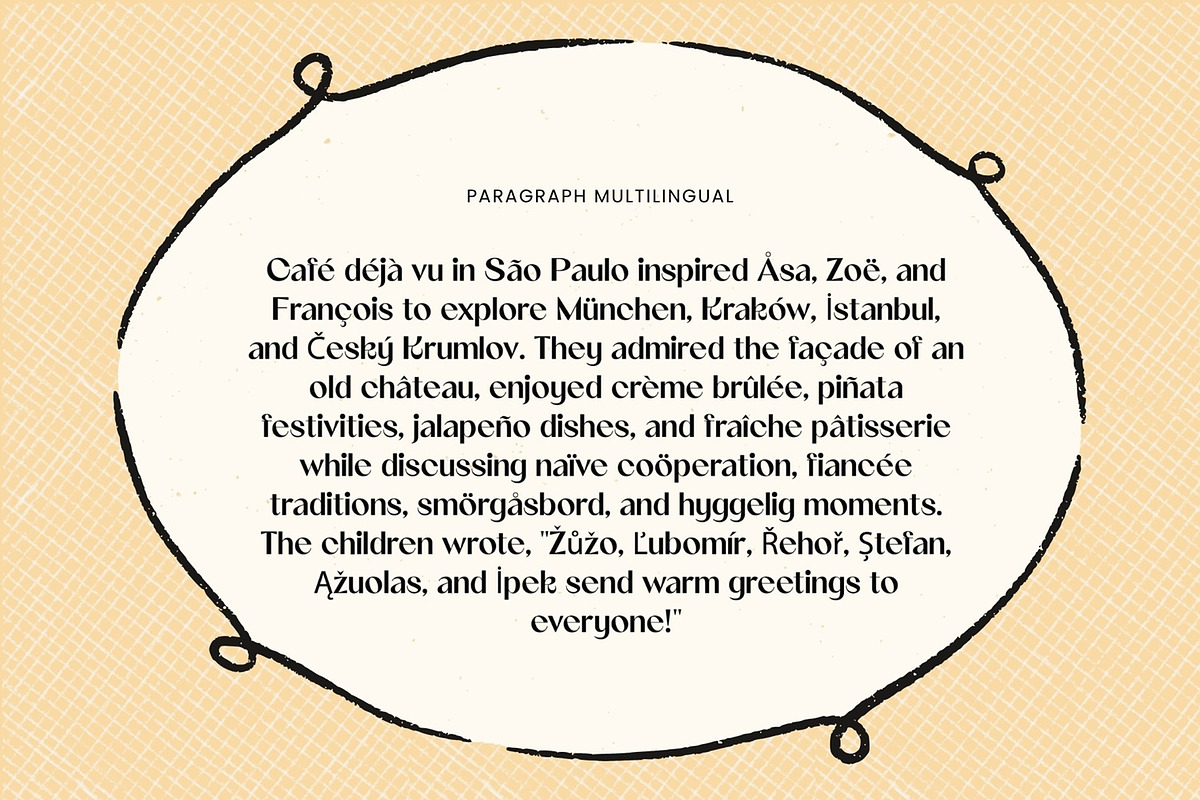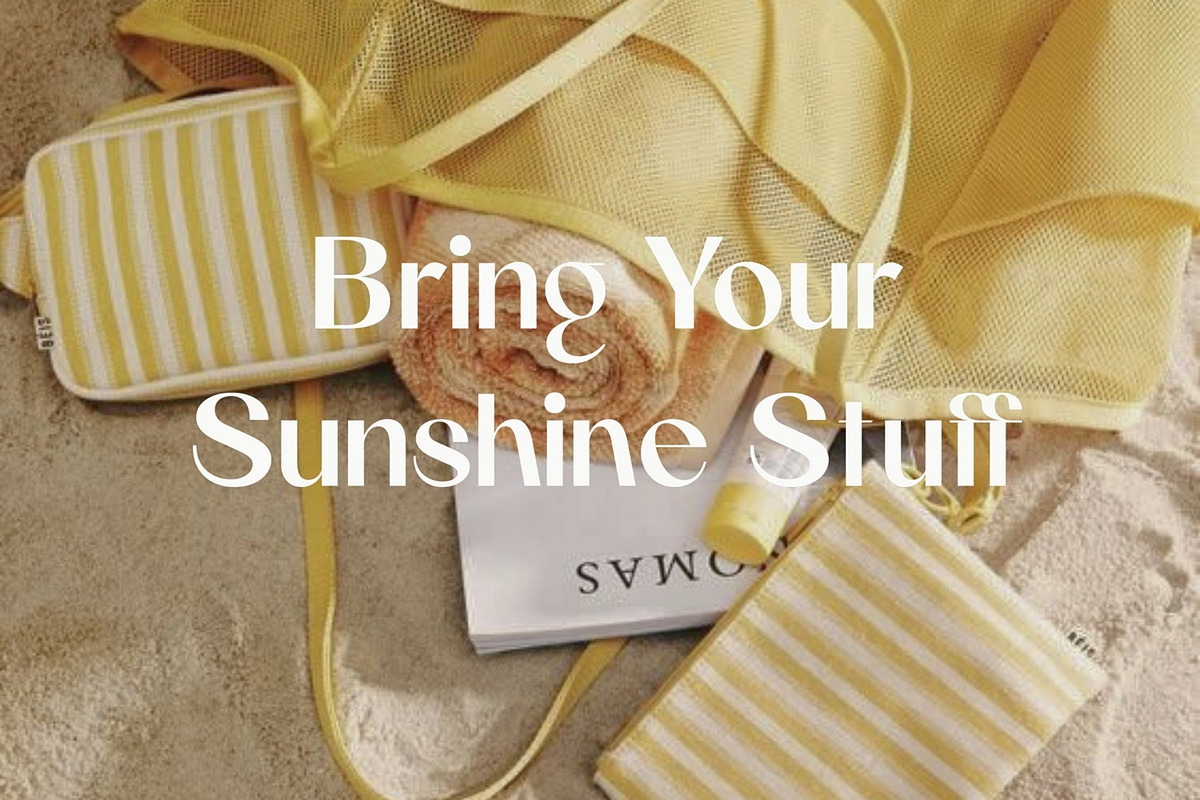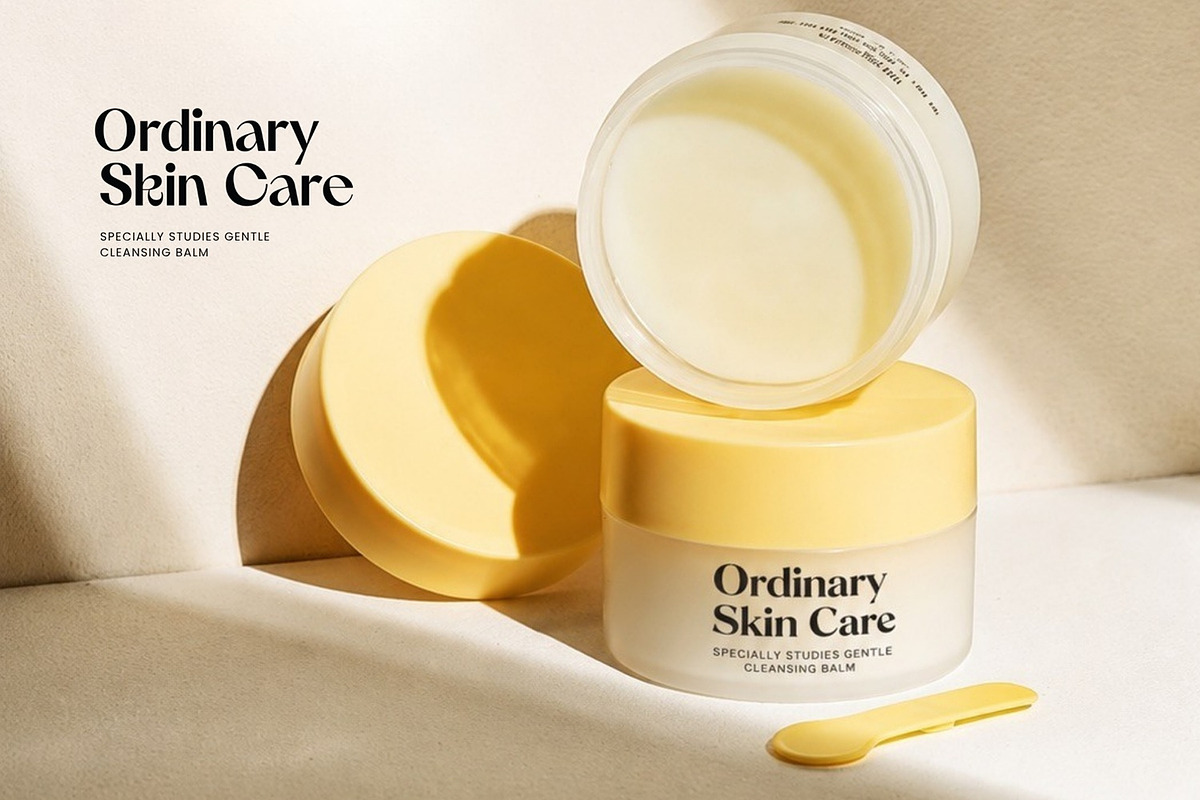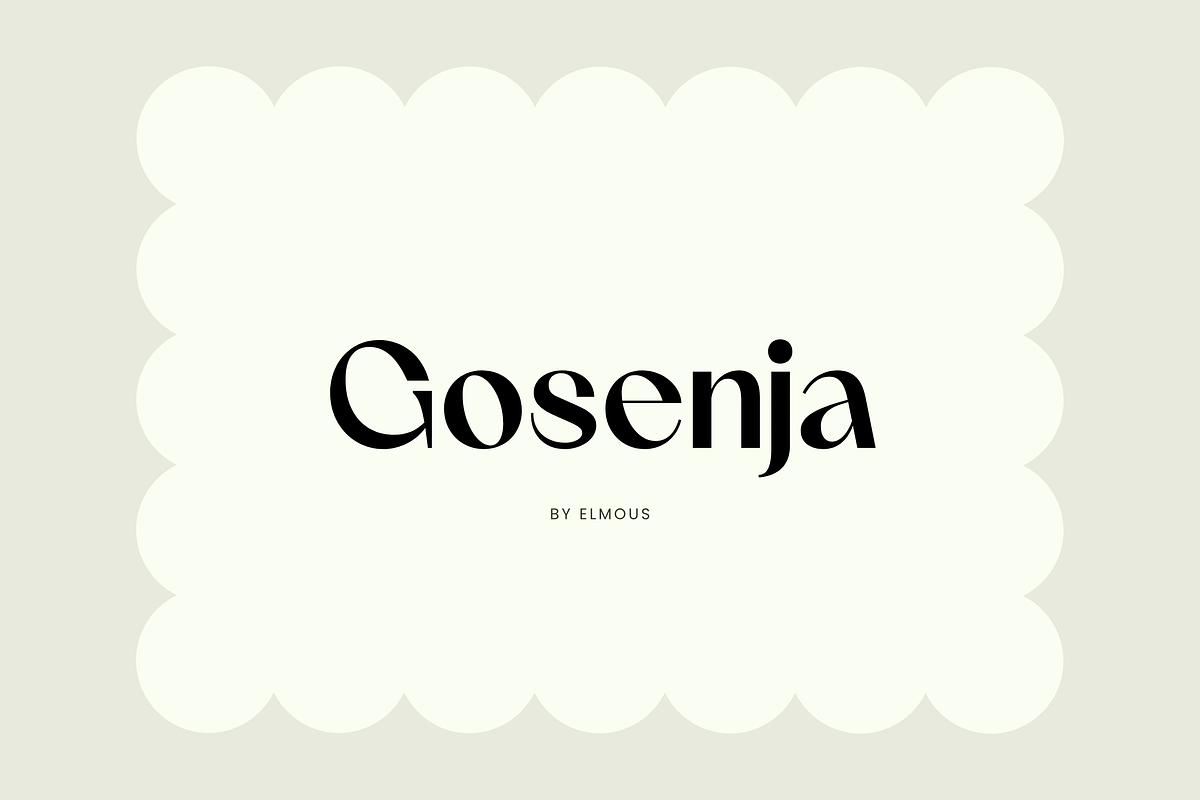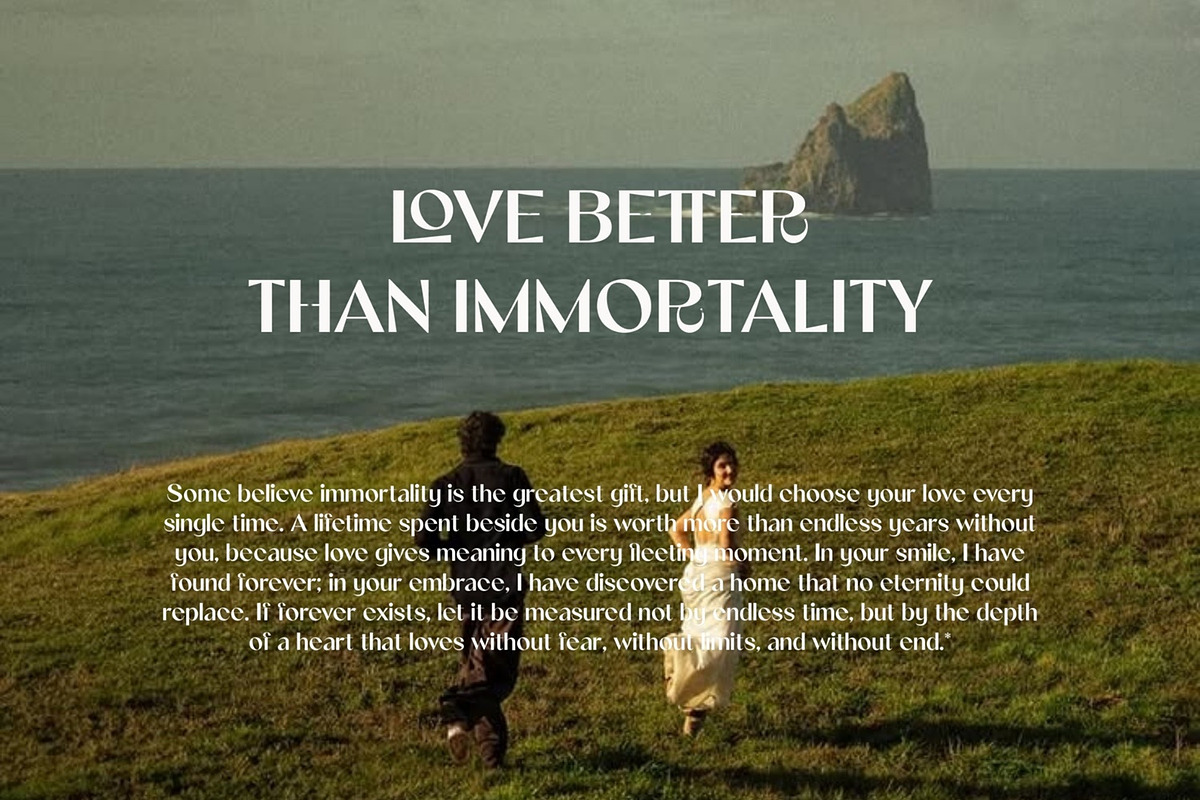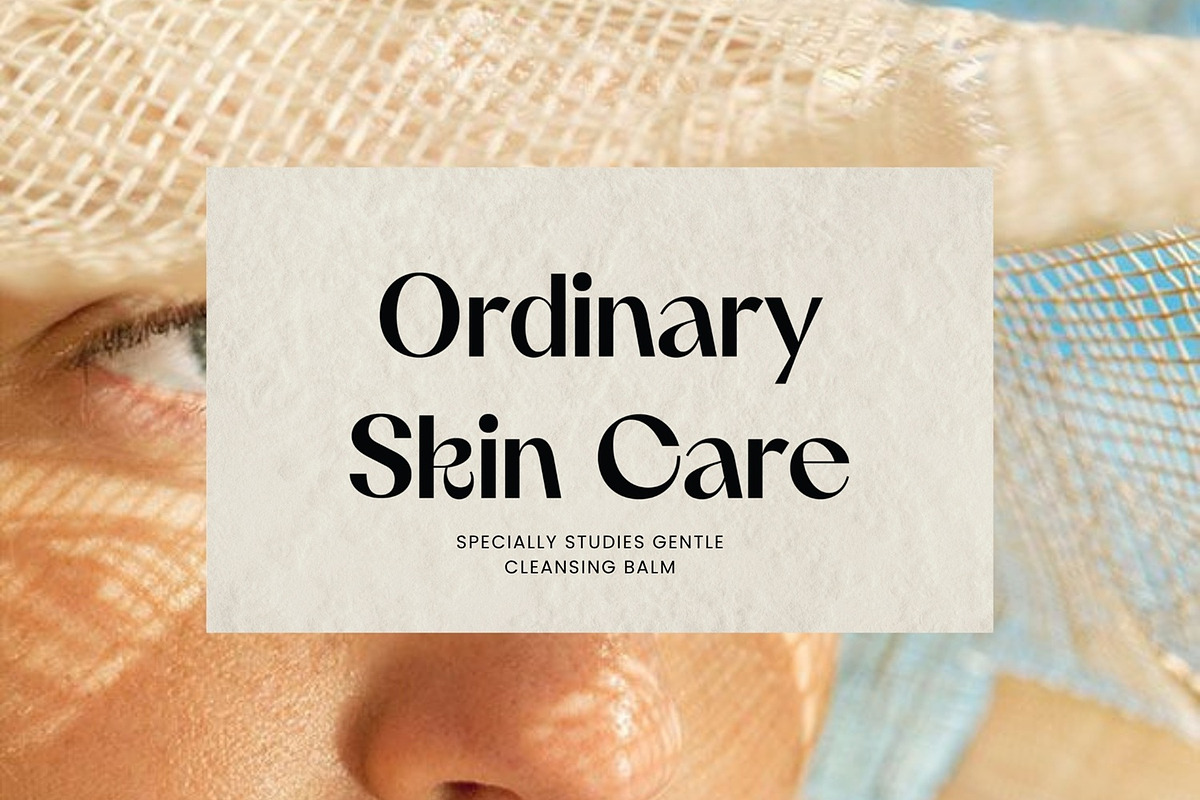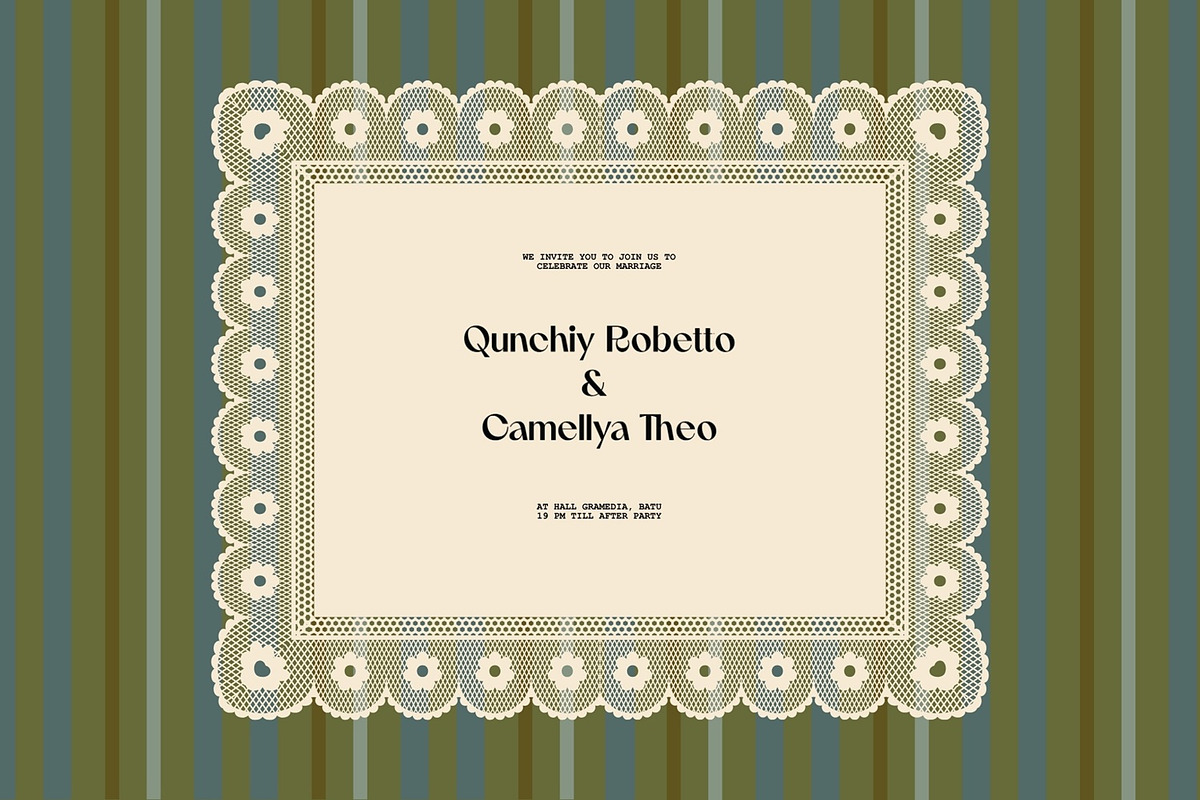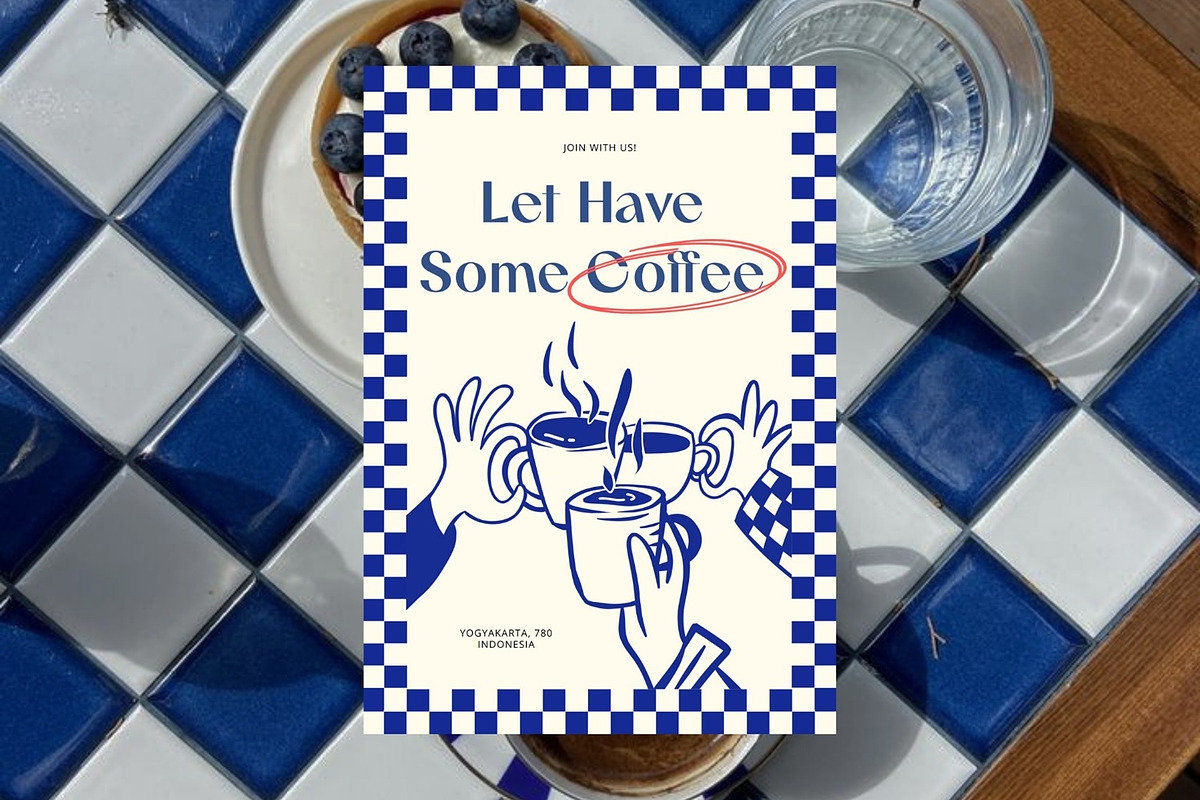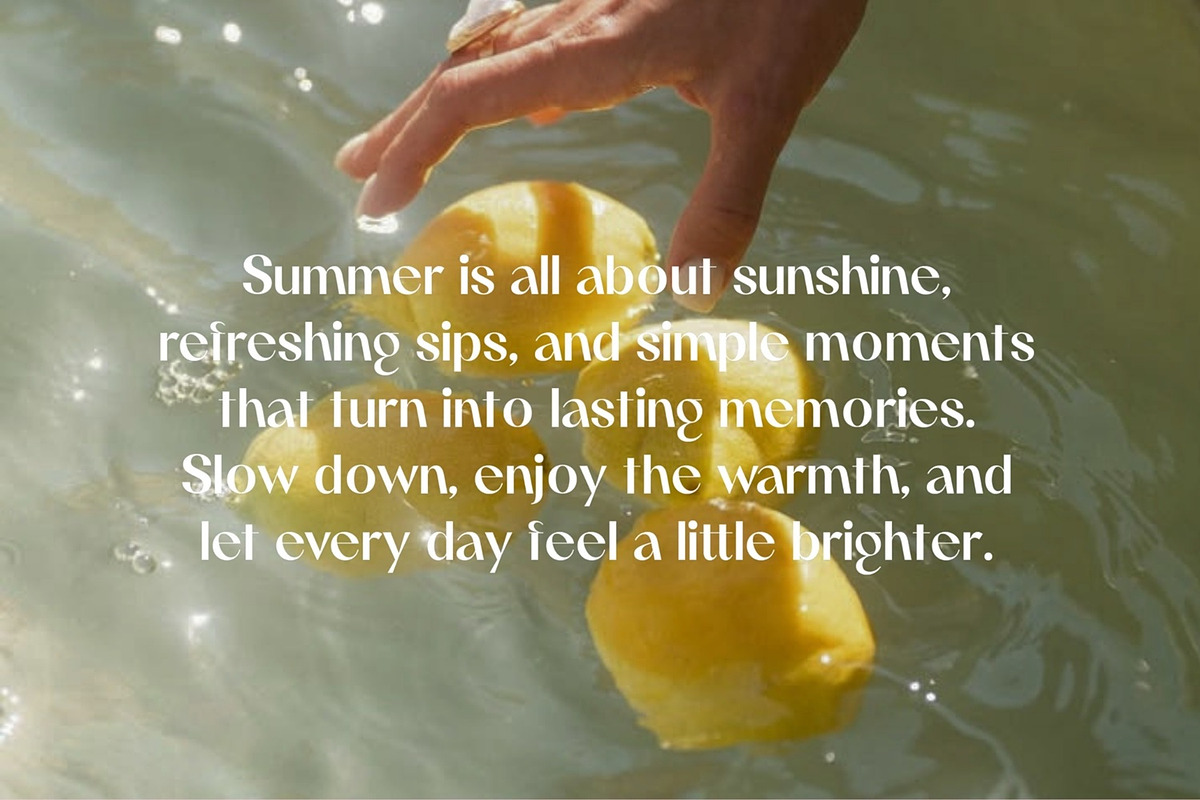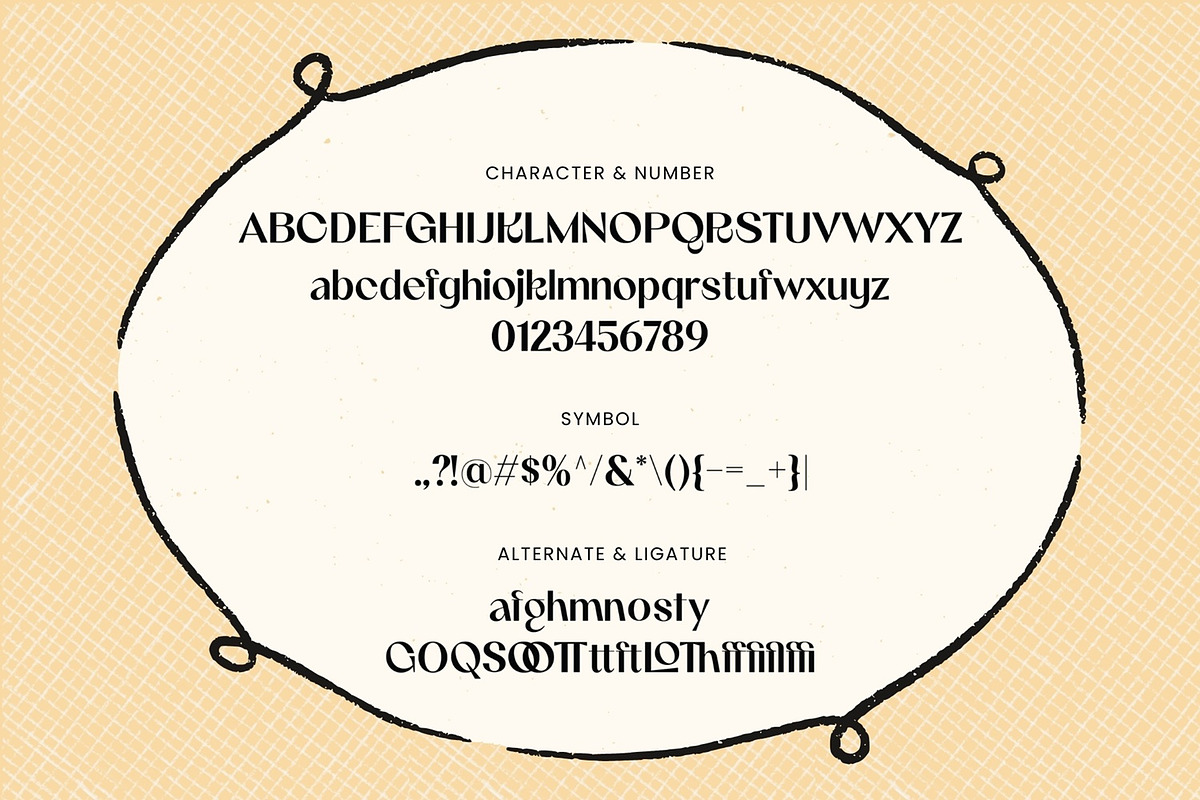
Gosenja – Elegant Summer Serif
Embrace the warmth and relaxed elegance of the sunnier seasons with Gosenja, a beautifully crafted summer inspired serif font that effortlessly balances classic structure with whimsical charm. This typeface brings an airy, sophisticated, yet approachable feel to any creative layout.
This typeface adapts beautifully across multiple design contexts. It adds an organic, refreshing touch to editorial photography and summer themed promotional graphics. It also transitions perfectly into the world of luxury wellness, cosmetic packaging, and skincare branding, whether you are looking to design a trendy cafe menu poster or a cinematic book cover layout.
Gosenja delivers a timelessly chic aesthetic that makes every word feel a little brighter.
Uppercase and Lowecase Characters.
Numerals and Punctuations.
Alternates and Ligatures.
Multilingual Support.